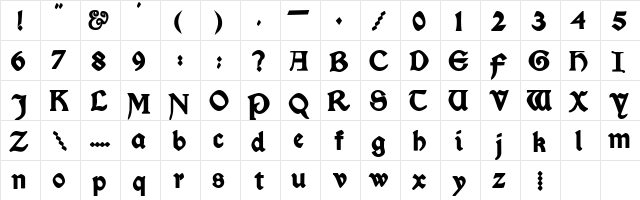
BeaulieuSSK Bold
Design Context for BeaulieuSSK Typeface
BeaulieuSSK is a composed and adaptable typeface that performs quietly and consistently across a wide range of design contexts. The heavy weight commands attention and anchors typographic hierarchies.